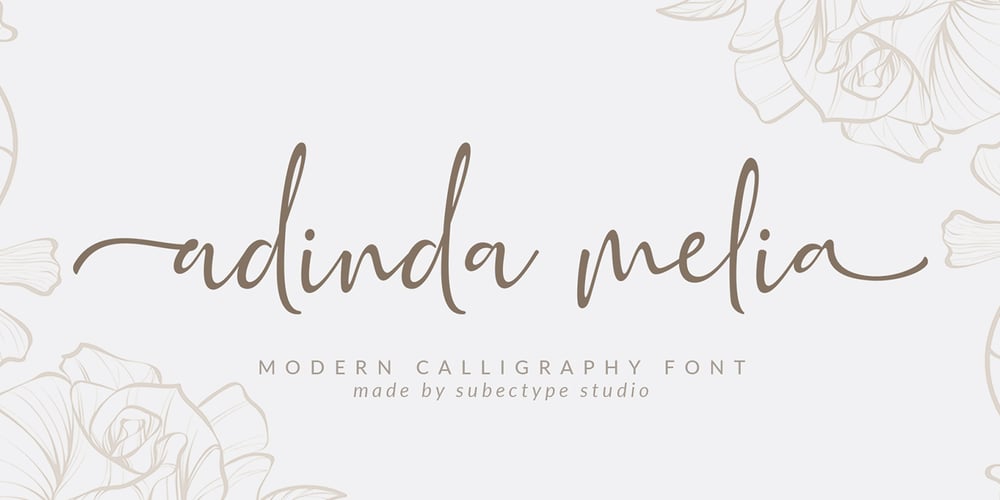
Adinda Melia
Adinda Melia font
Adinda Melia Font Family was designed by Rangga Subekti and published by Subectype. Adinda Melia contains 1 styles and family package options. Adinda Melia is a lovely modern calligraphy font with with a touch of handwriting style. This font is perfect for creating signature logos and watermarks for photography studio or wedding invitation. Adinda Melia includes full set of beautiful hand lettered uppercase and lowercase letters, numerals, a large range of punctuation and ligatures. All lowercase letters include beginning and ending swashes, giving realistic hand-lettered style. In order to use the beautiful swashes, you need a program that supports OpenType features such as Adobe Illustrator CS, Adobe Photoshop CC, Adobe Indesign and Corel Draw. Thank You Subectype studio